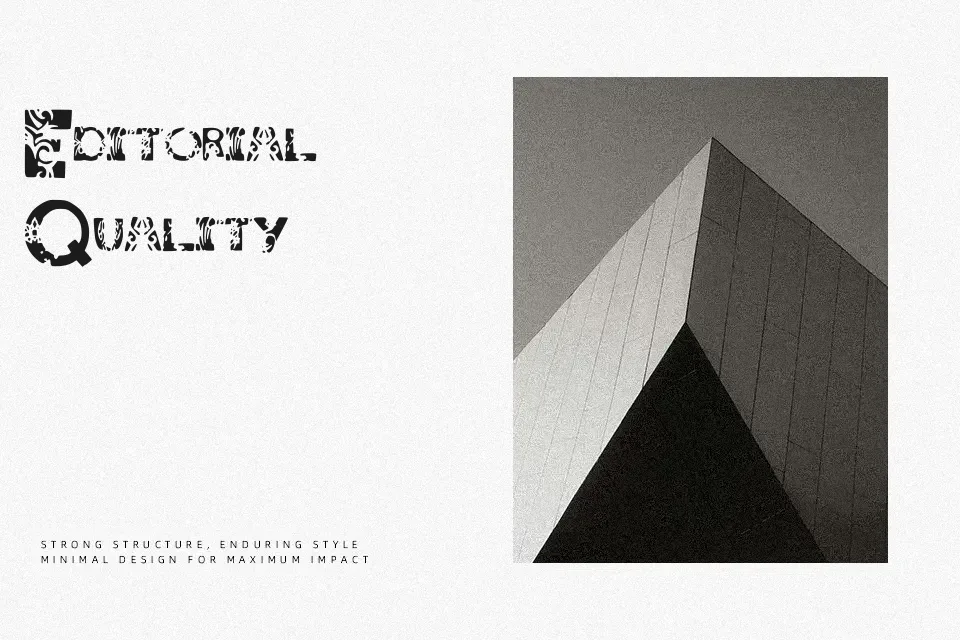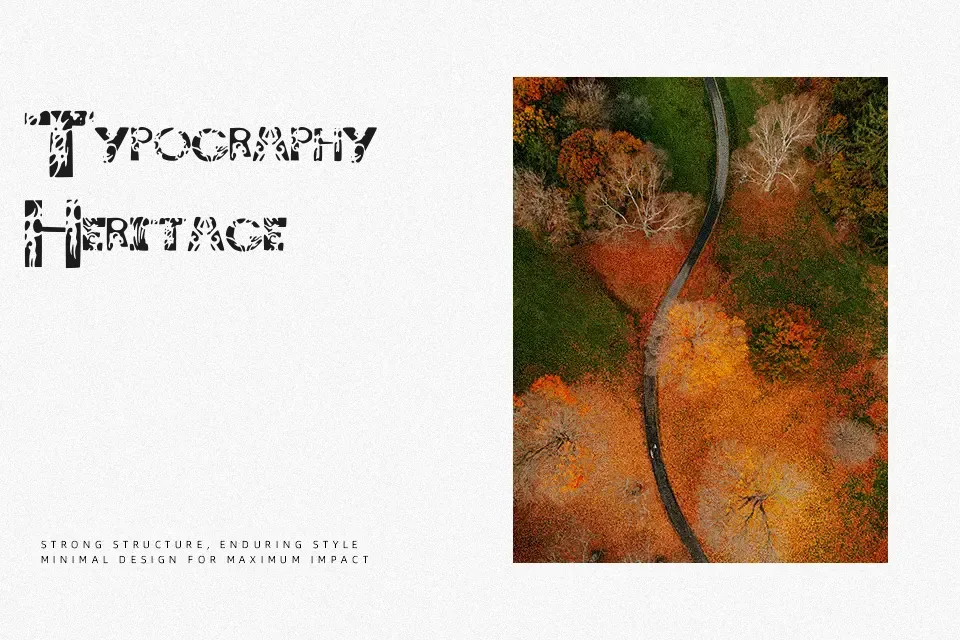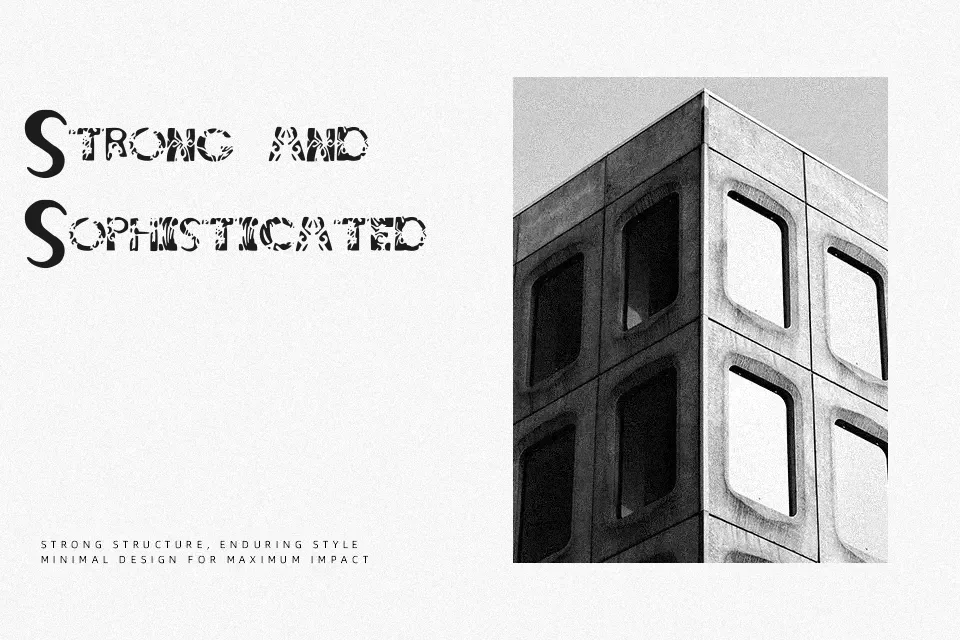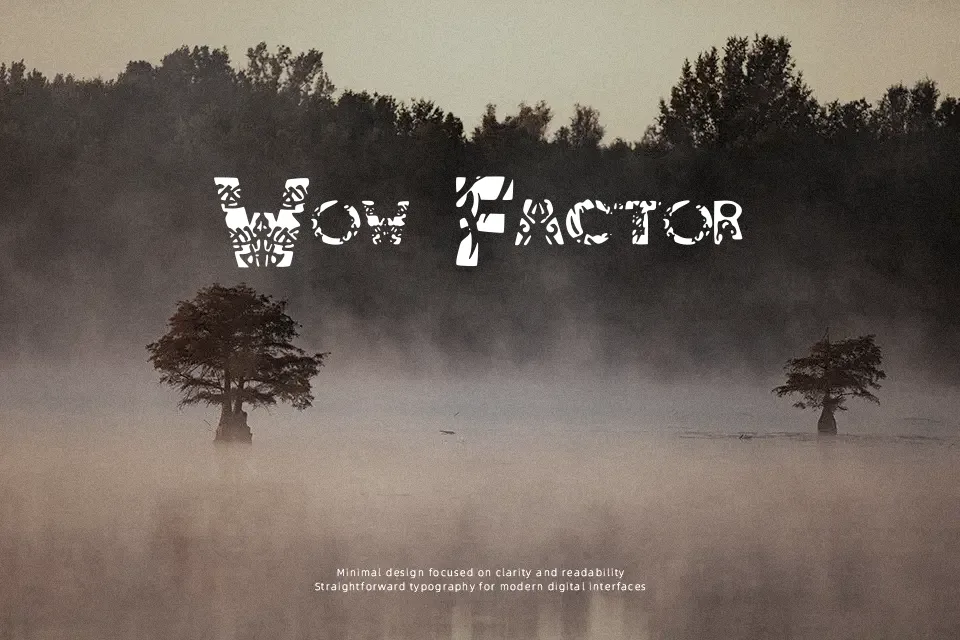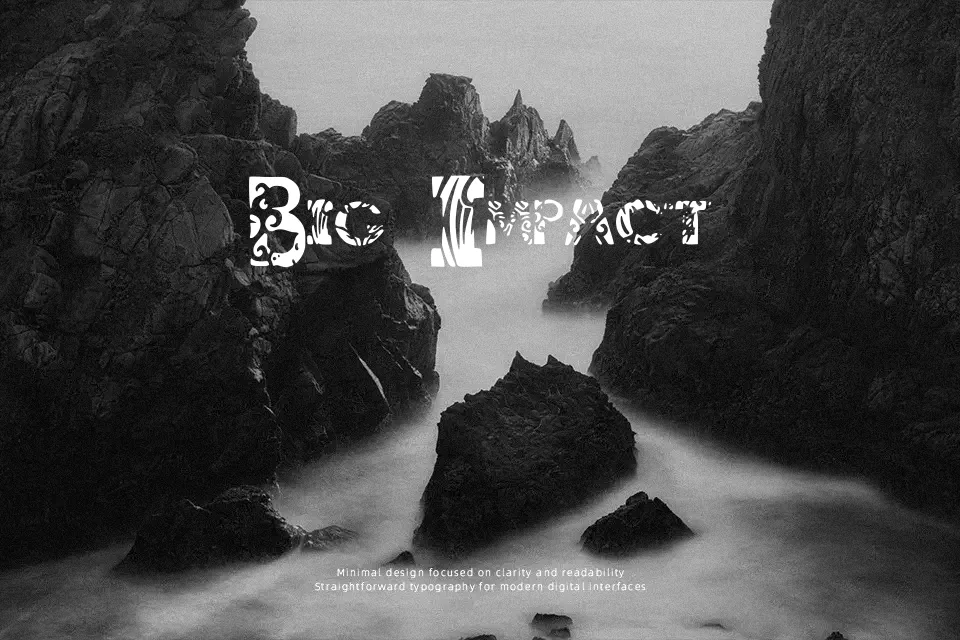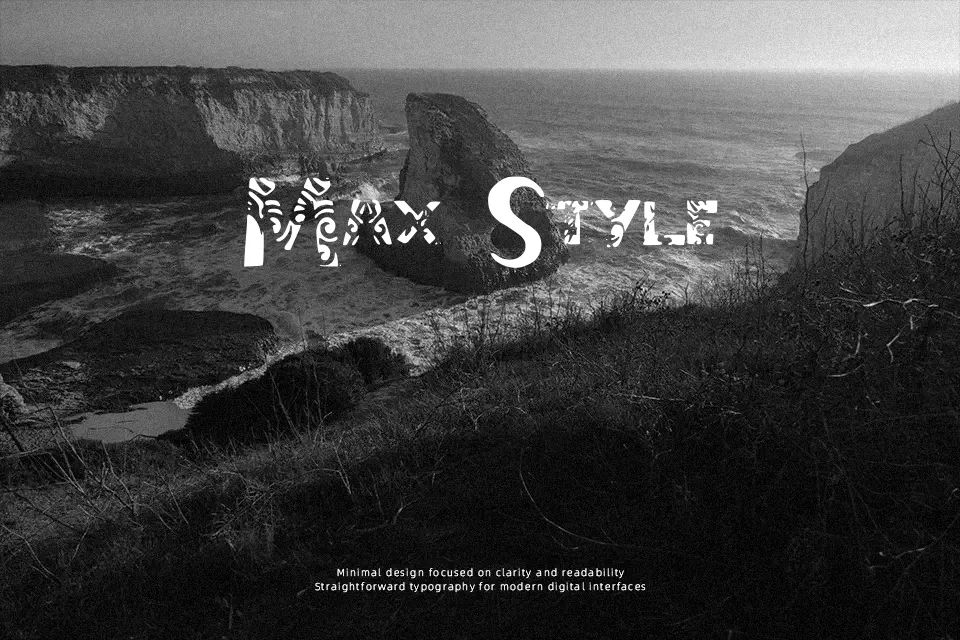
Tribalistik Tatwu Font
Designed by Alexandre
Tribalistik Tatwu Font exhibits massive uppercase forms characterized by solid black stroke weights interrupted by intricate thorn-like cuts and pointed tribal flourishes. The proportions lean wide, giving each glyph an imposing footprint anchored by sharp terminals and erratic internal counters. Tight tracking holds the character sequence compact, which intensifies overall contrast while preserving glyph separation at large scales. Legibility remains reliable when the typeface headlines album jackets, motorcycle branding, or streetwear graphics. However, the ornate interior carving tends to blur into solid masses at small text sizes, making the letterforms entirely unsuitable for multi-line body copy or administrative documents. This aggressive styling functions best when treated as standalone graphic artwork.
Best For: tattoo studio merchandise, heavy metal album covers, motorcycle club insignia, apparel graphics
Not Ideal For: continuous body text, mobile interface labels, corporate annual reports, dense editorial columns